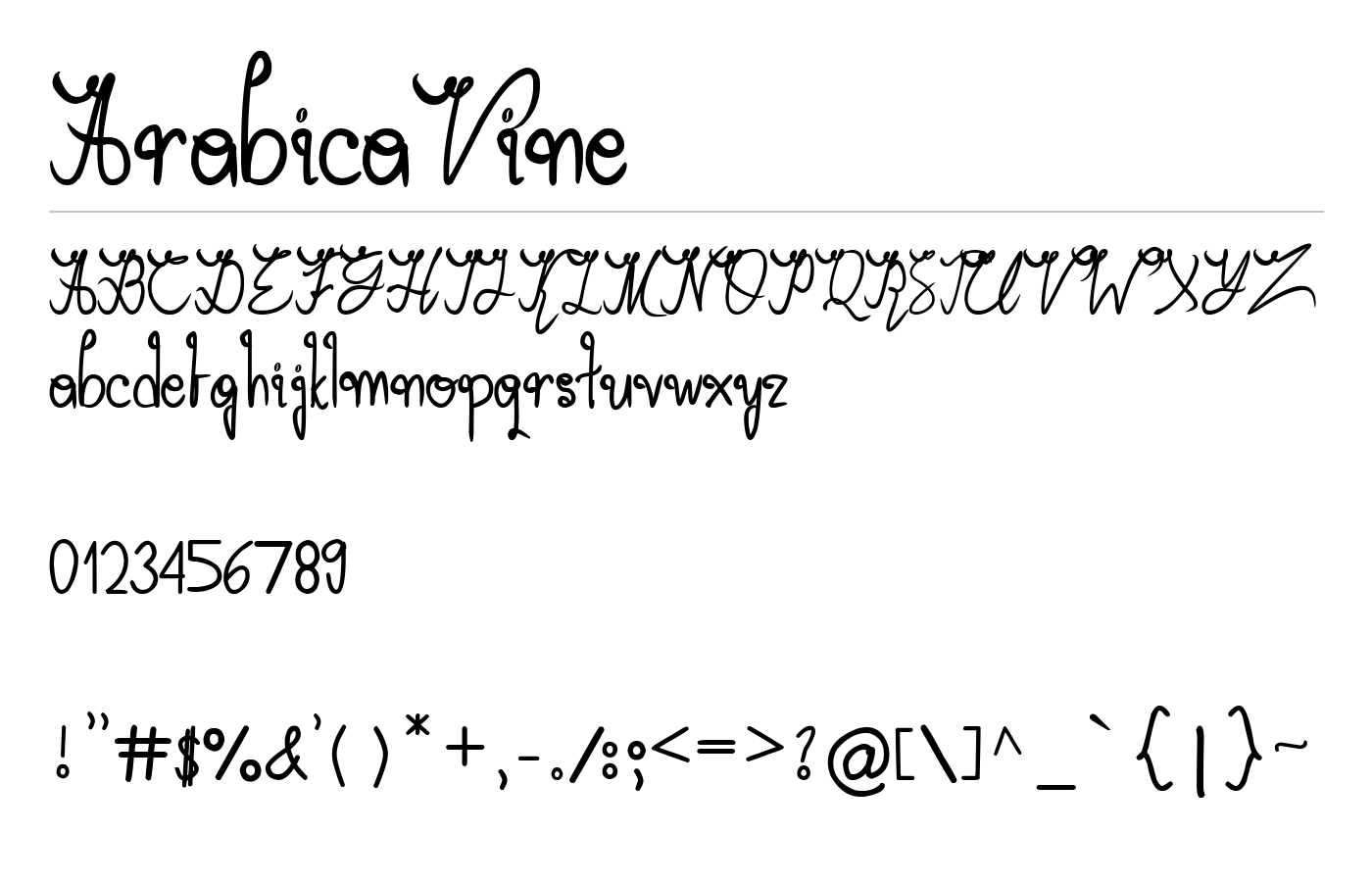
ArabicaVine is a playful, handwritten script font with light, flowing strokes and whimsical loops, especially noticeable in the uppercase letters. Its casual yet decorative style makes it perfect for creative projects, invitations, and branding that want to convey a friendly, artistic vibe. This unique font works best in headlines or decorative uses where personality and charm are key.
ArabicaVine Font